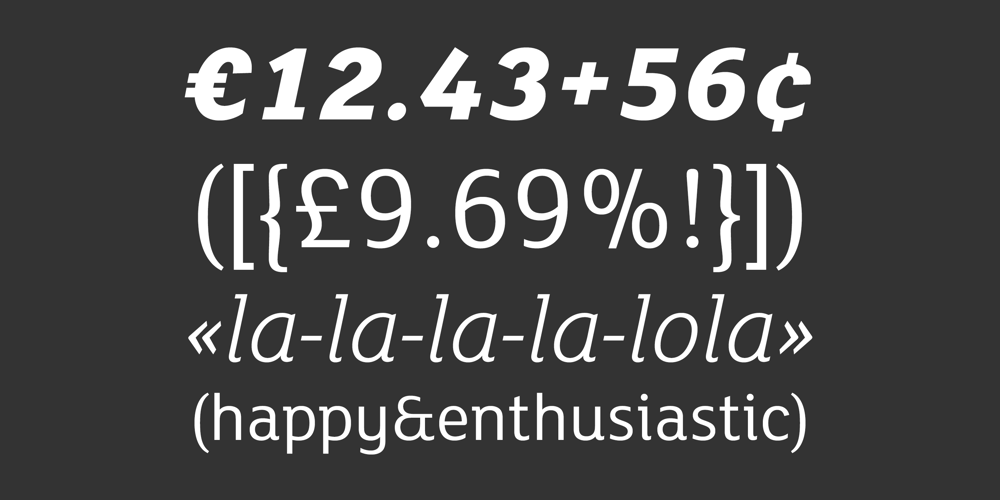
FS Lola Font Family was designed by Phil Garnham and published by Fontsmith. FS Lola contains 10 styles and family package options. L-O-L-ALike the subject of the Kinks’ song, FS Lola is a little bit of both – a font with a rare combination of masculine and feminine.The font was inspired by the song, which itself was inspired by the night the Kinks’ manager spent dancing drunkenly in a Soho club with a beautiful woman… Or so he’d thought, until her stubble started to show halfway through the evening.Masculine/femininPhil Garnham’s experience in designing FS Lola was similar to the one related by Ray Davies. Setting out to create a sans serif font, he realised along the way that he was actually dealing with a semi-serif.He went with it, though, and produced a font with the best masculine and feminine qualities: hard edges and corners tempered by shapes of softness and generosity, the outcome of what Phil calls an “organic” design process.“Initially, my designs were very graphic and hard but not very distinctive. By printing and redrawing the letters in pencil I achieved a softer and friendlier alphabet with a strong personality.”BroadLola, as you’d expect, is very broad-minded. Available in five weights with italics – and fluent in central European languages – FS Lola offers a confident combination of feminine softness and male steeliness to any kind of design.As the song says, “It’s a mixed-up, muddled-up, shook-up world… except for Lola.